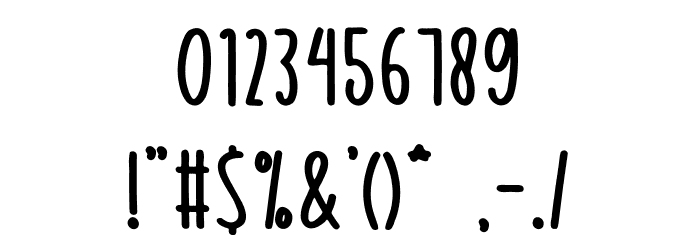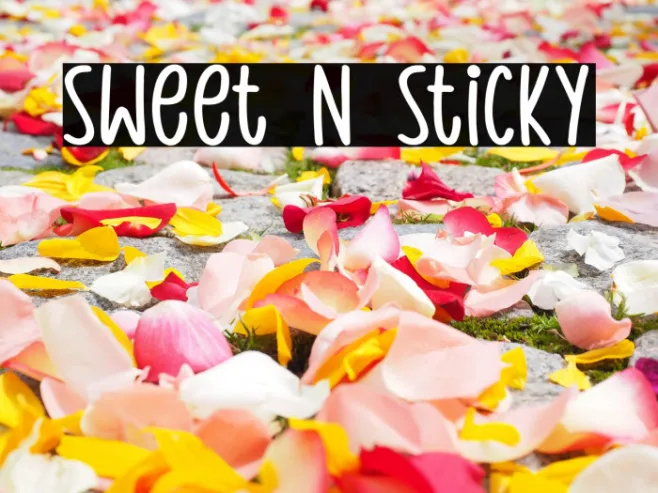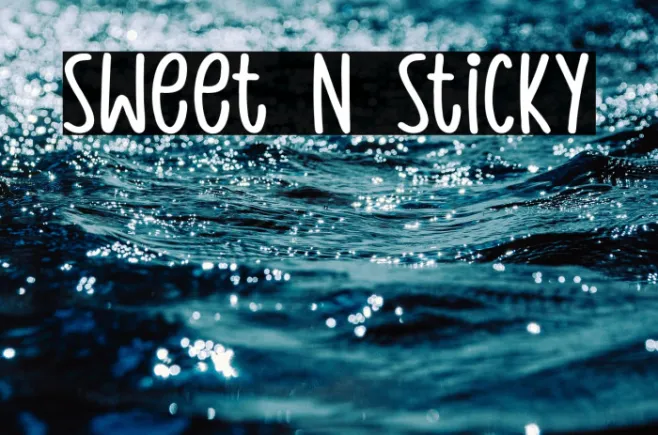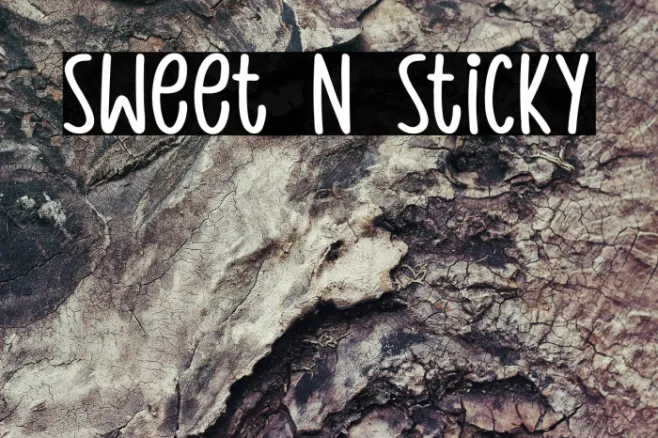
Sweet N Sticky Font
This playful and whimsical font features rounded, smooth edges and a hand-drawn aesthetic that exudes a sense of fun and creativity. The letters are slightly irregular, adding to the charm and informal style. It maintains a consistent stroke width throughout, giving it a balanced and cohesive look. The characters are well-spaced, ensuring readability while maintaining a casual feel. This font is perfect for projects that require a friendly and approachable tone, such as children's books, playful branding, or creative invitations.
A playful, hand-drawn font with rounded edges and a whimsical style.
- Proposed Projects: Children's books, playful branding, creative invitations, casual posters.
- Use Case: Headlines, Logos, Invitations